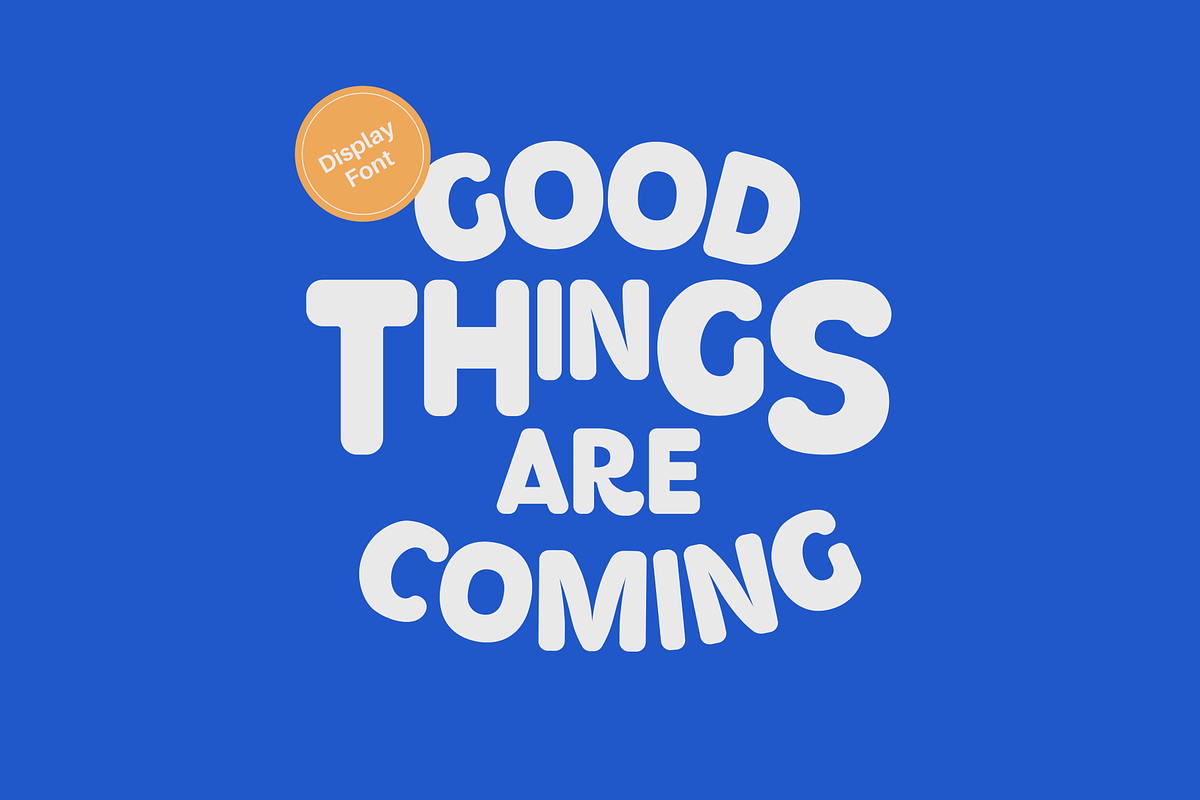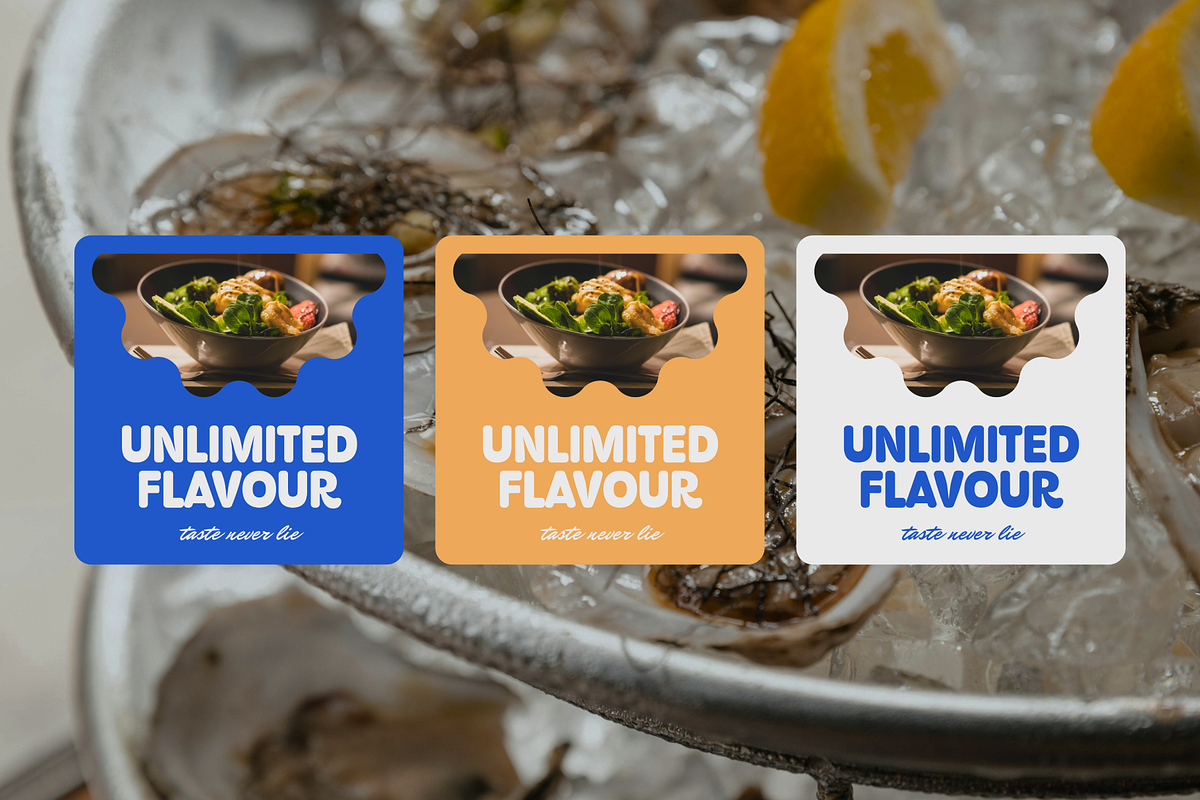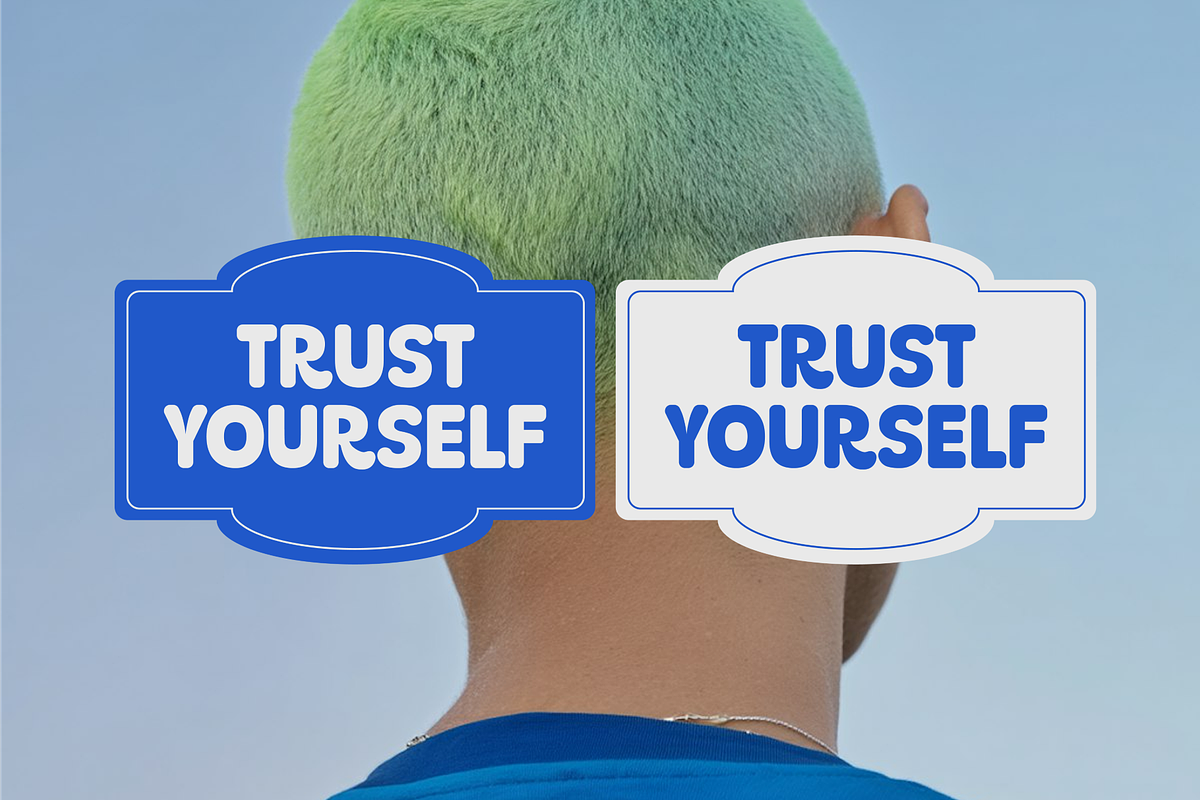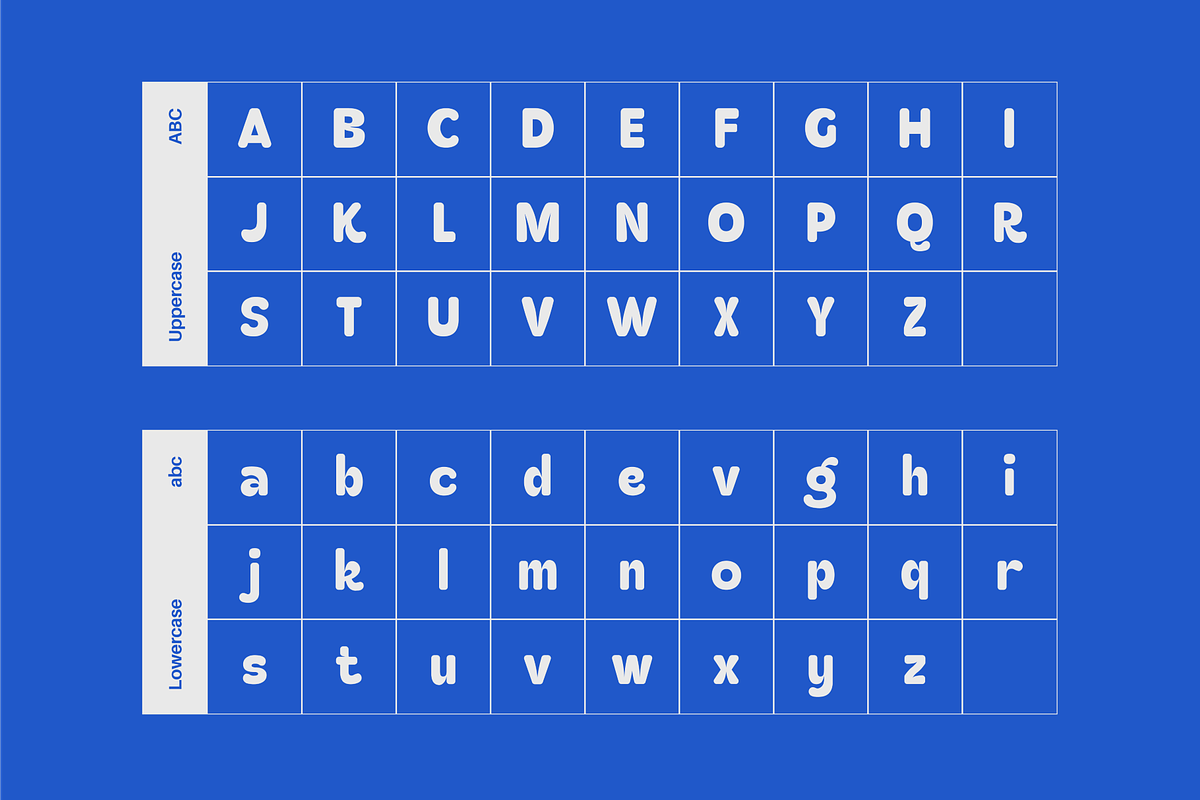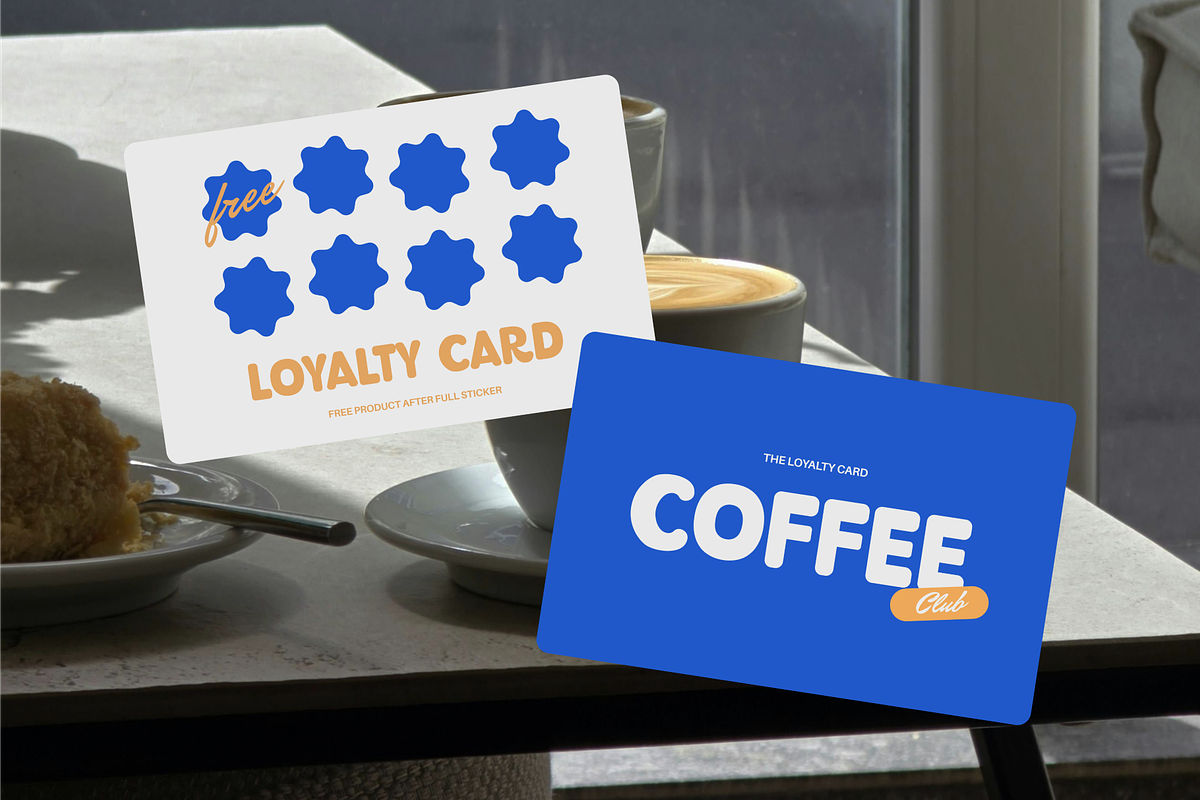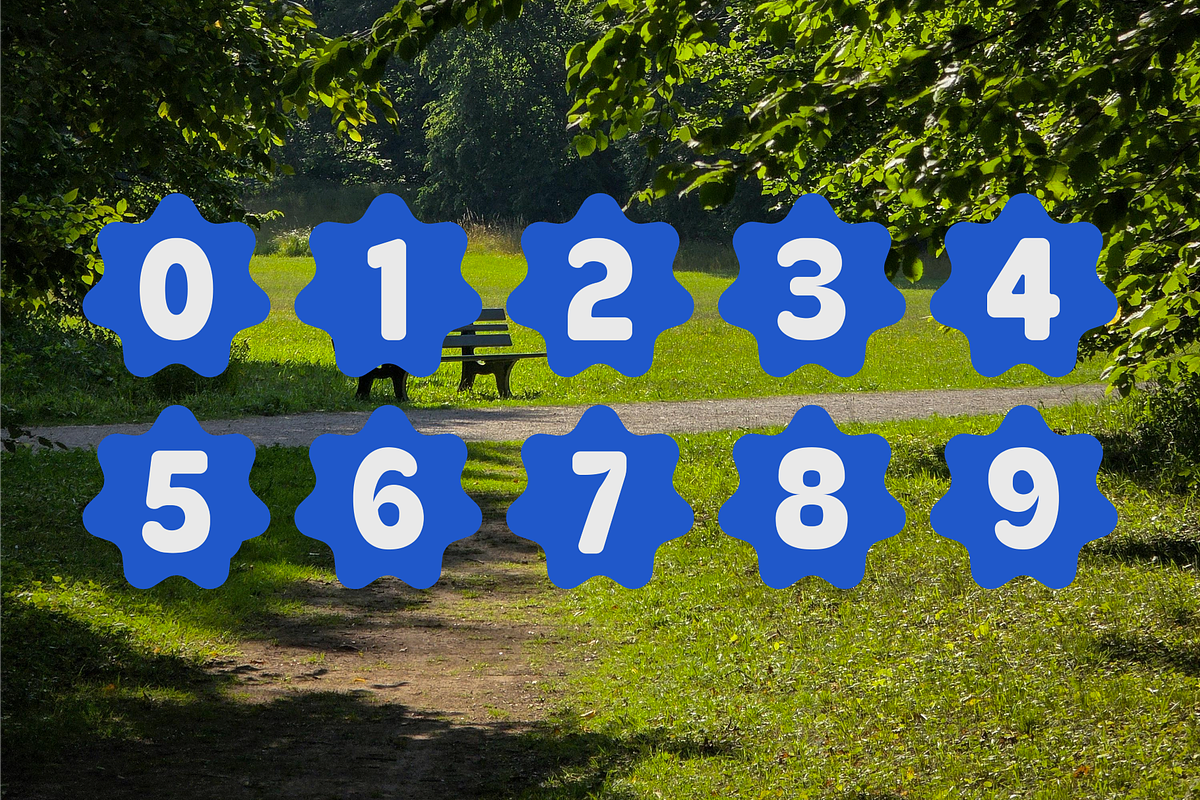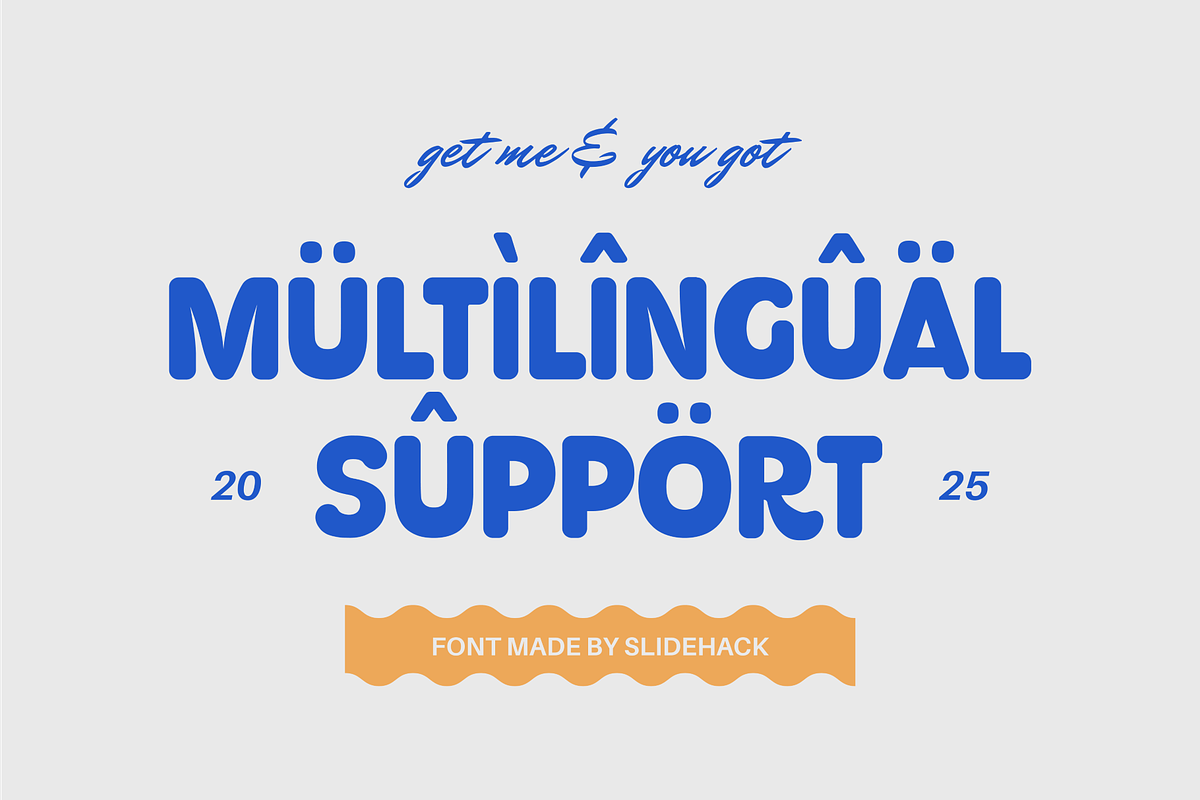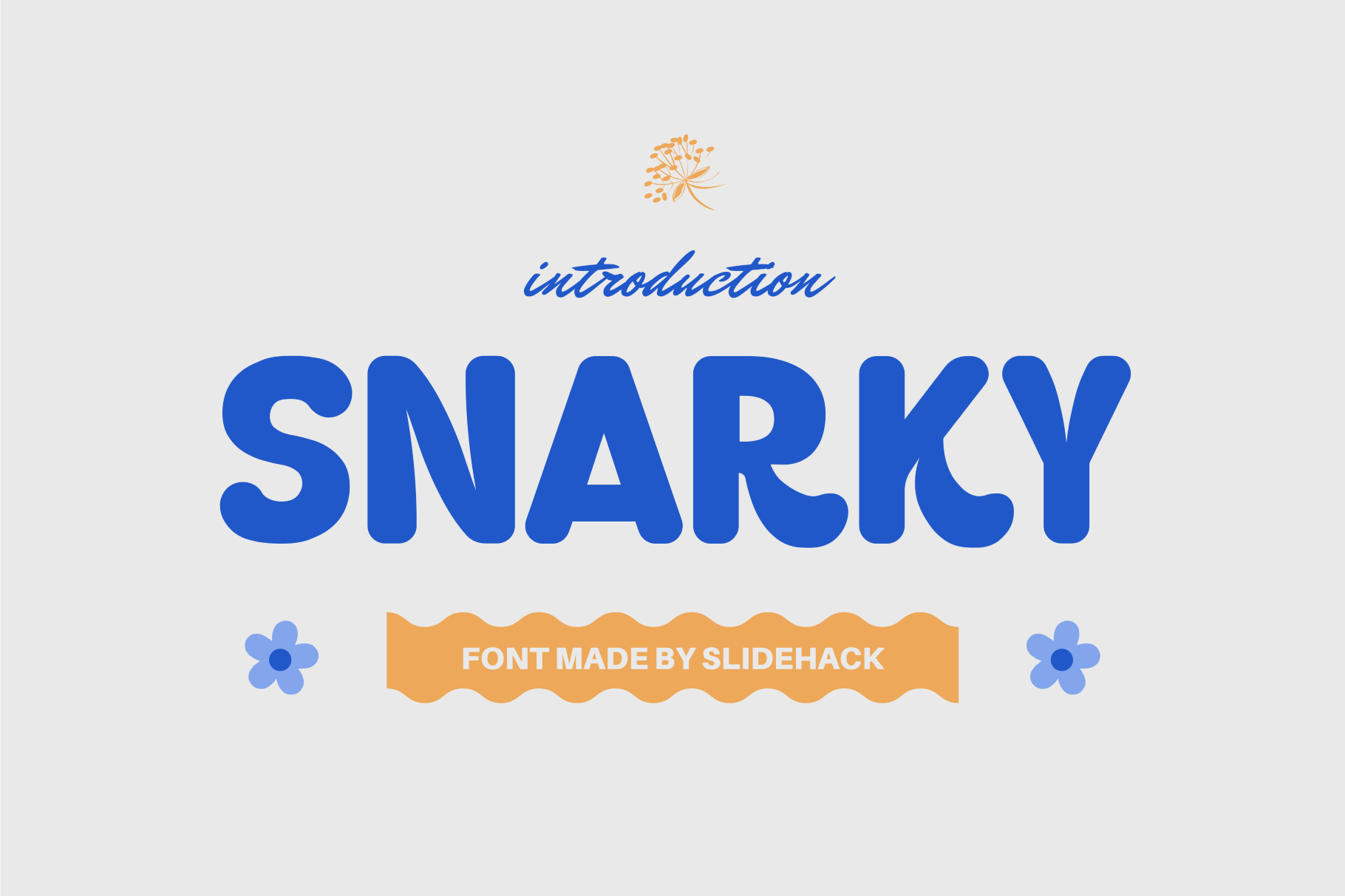
Snarky - Display Font
Snarky is a playful bold display font perfect for headlines, logos, posters, and packaging. Its rounded, friendly characters add personality to branding, social media, and web projects. Includes multilingual support, uppercase, lowercase, numerals, and stylistic alternates. Easy-to-use OTF/TTF files for designers seeking a vibrant, modern typeface with commercial use rights.